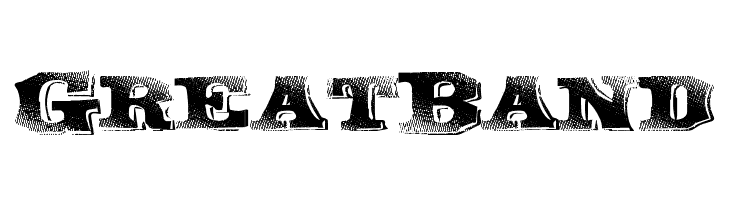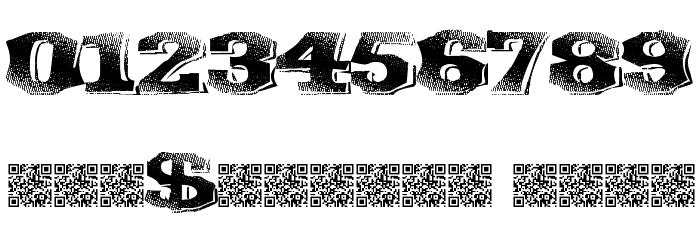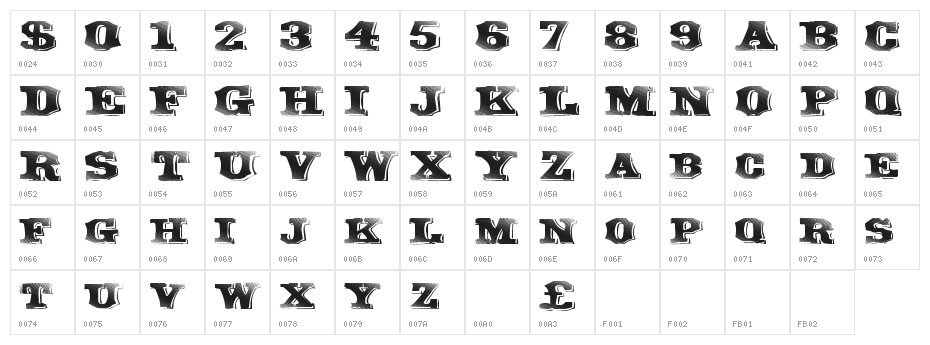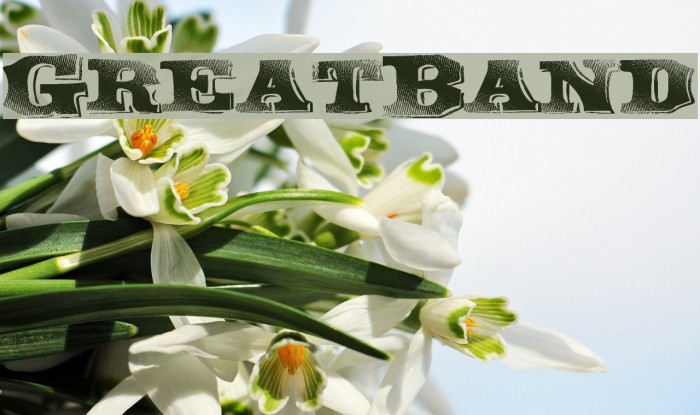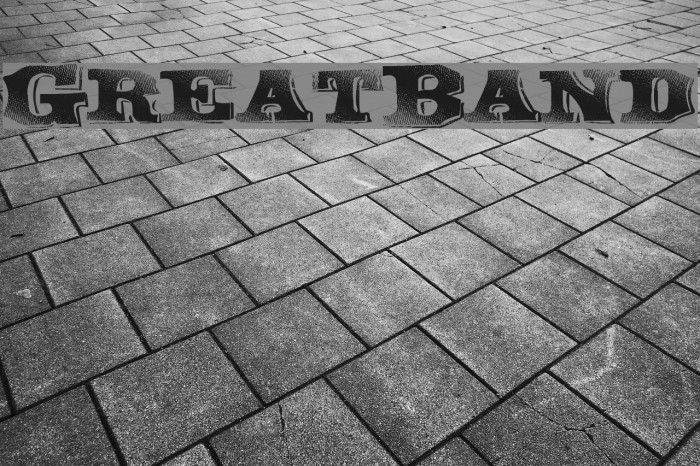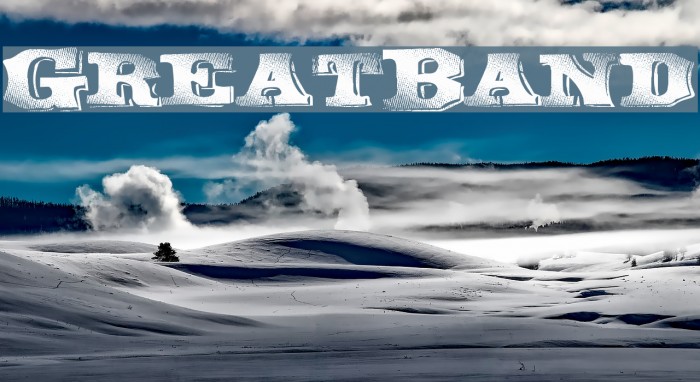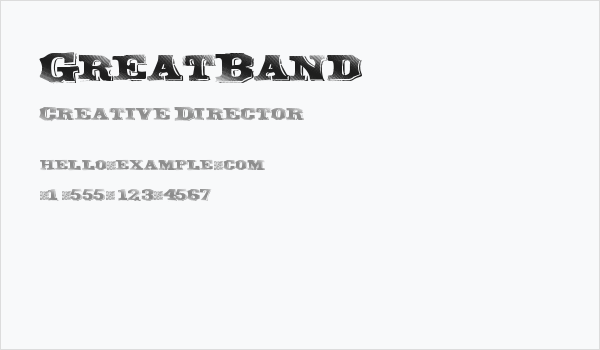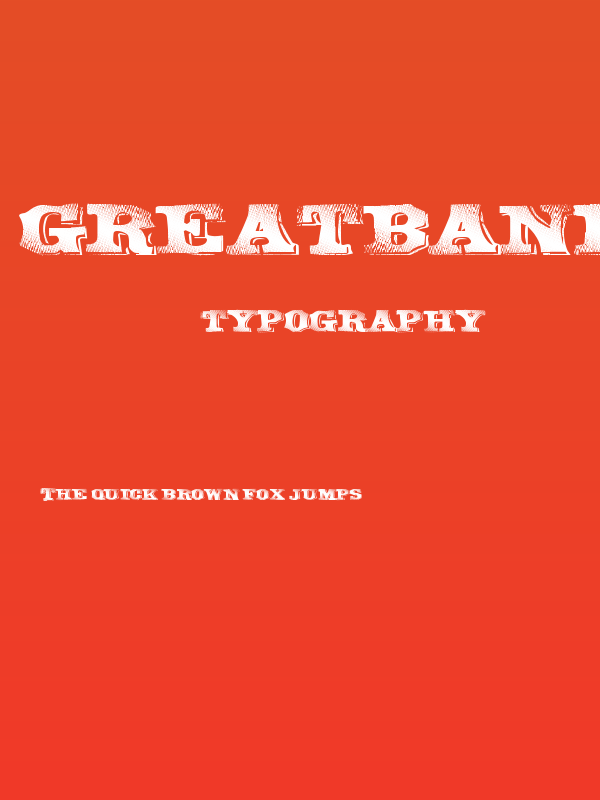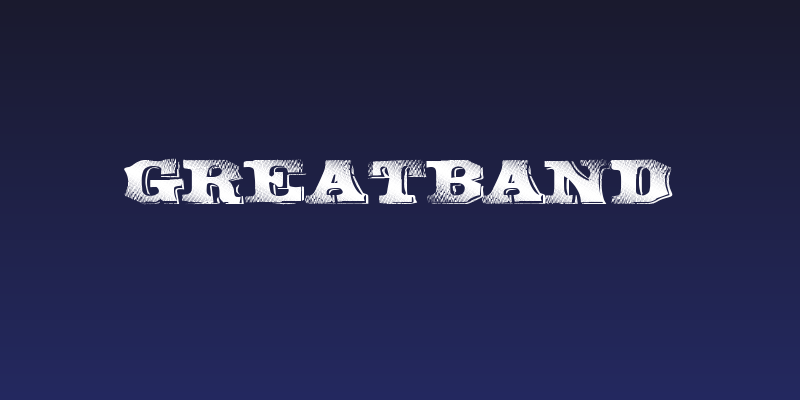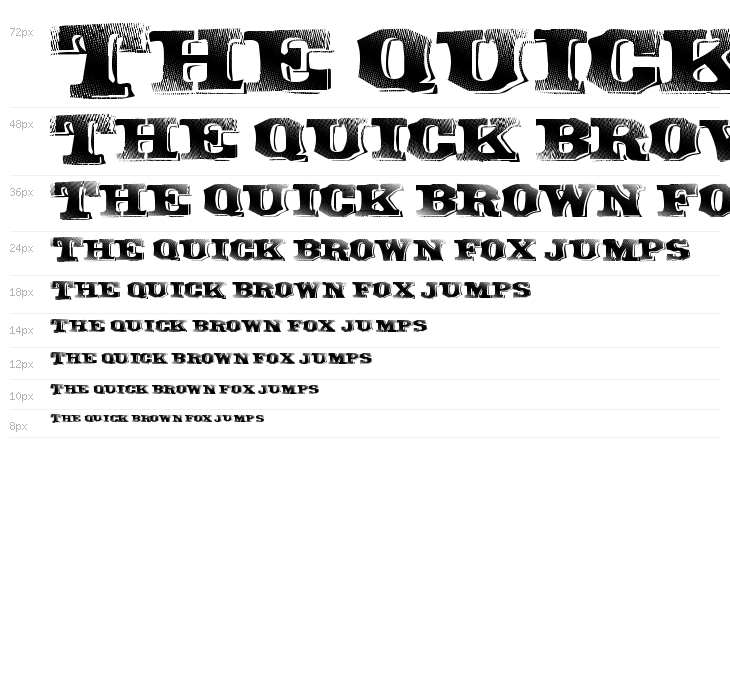
GreatBand Font
GreatBand Description
This font features a bold, decorative style with a distressed texture that gives it a vintage, rugged appearance. The characters are thick and heavily stylized, with a shadow effect that adds depth and dimension. The uppercase letters are prominent and commanding, making them ideal for attention-grabbing headlines or titles. The numbers and special characters maintain the same bold and textured design, ensuring consistency across all elements. This font's unique style makes it suitable for projects that require a strong, impactful visual presence.
| Proposed Projects | Ideal for posters, album covers, branding, and any design requiring a strong, vintage aesthetic. |